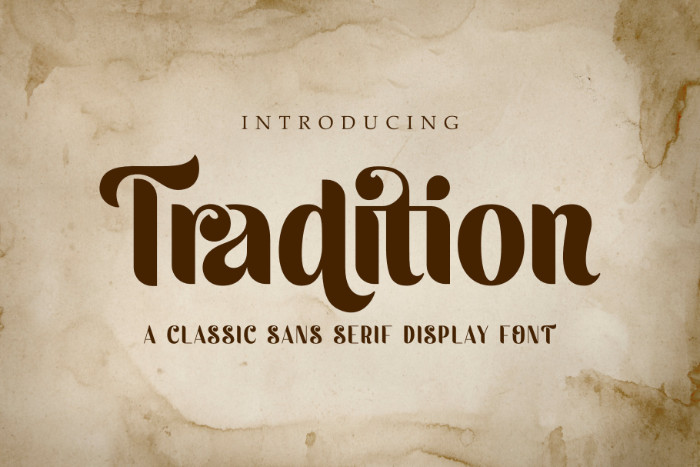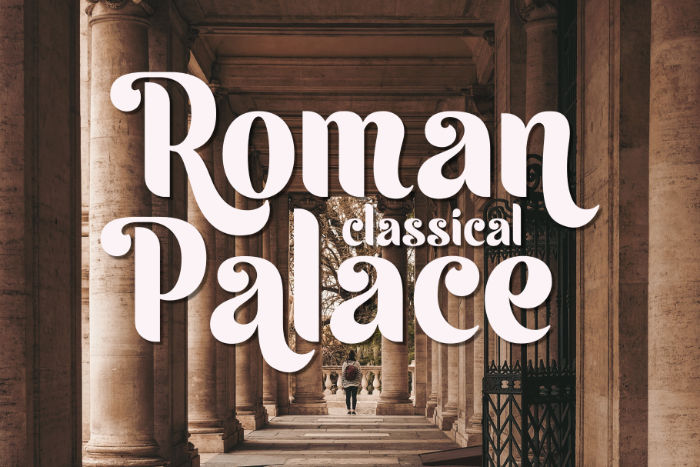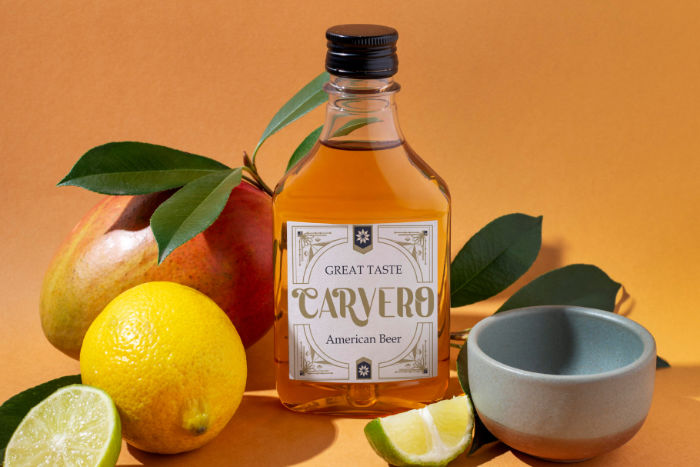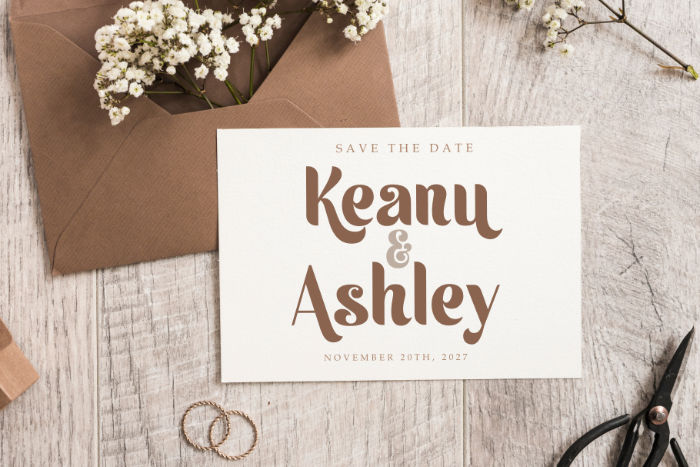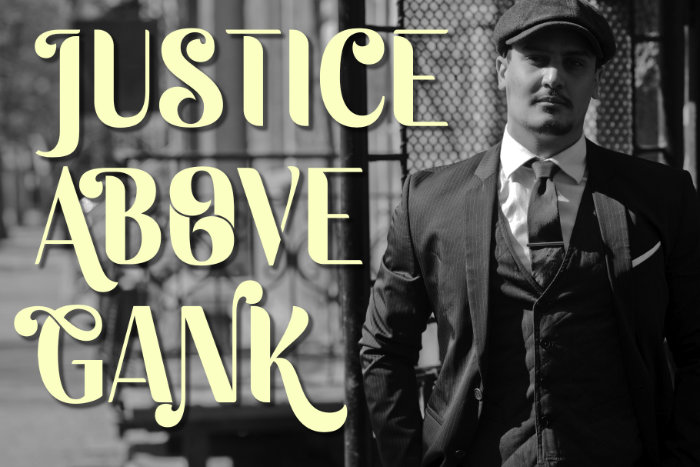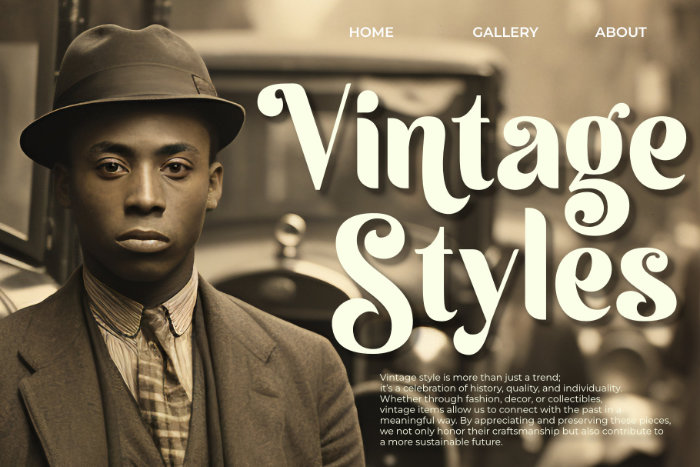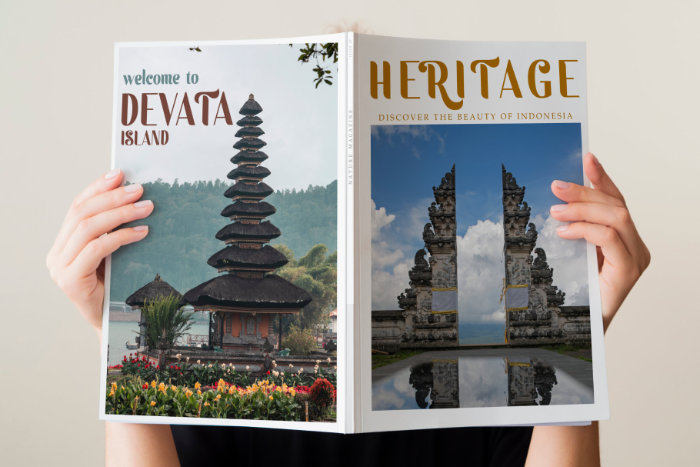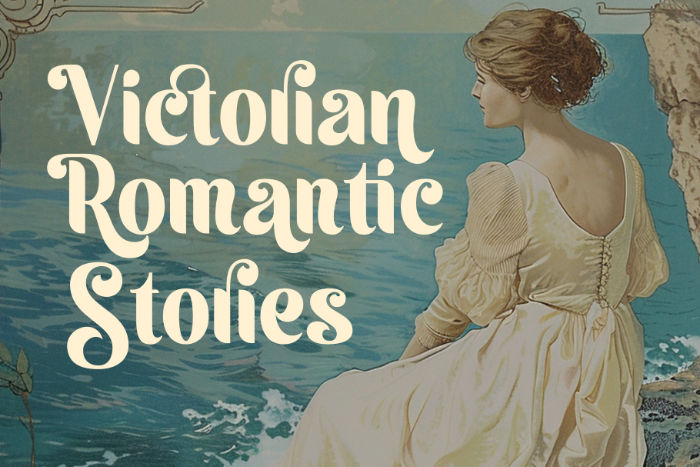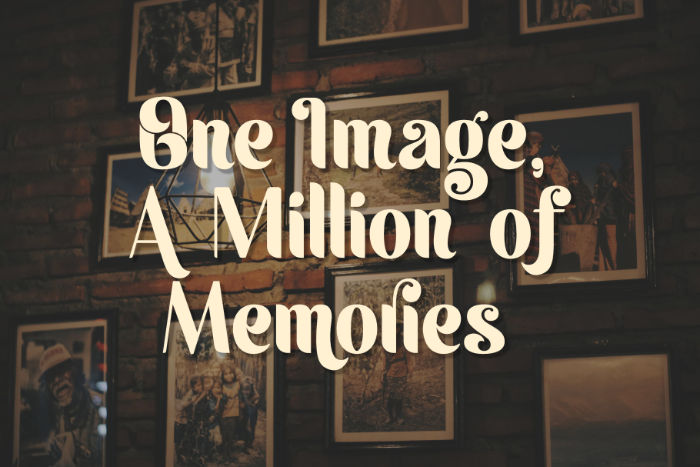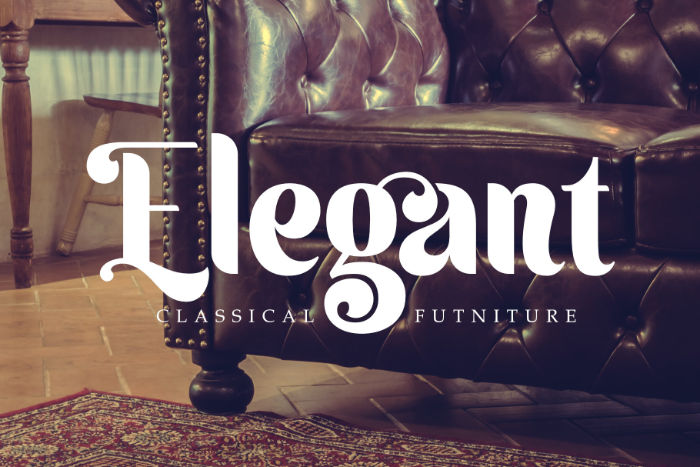
Tradition is a striking Bold Classic Sans Serif font designed to exude strength and sophistication in any creative project. With its clean, structured letterforms and timeless appeal, this font delivers a refined yet commanding presence. It is crafted with precision to balance modern minimalism with a traditional aesthetic, making it an excellent choice for projects requiring bold, confident typography.
This font offers a wide range of alternates and ligatures, providing designers with dynamic customization options to enhance visual impact. Whether used for branding, headlines, editorial layouts, or packaging, Tradition ensures clarity and authority with its strong, well-defined characters. Its seamless adaptability allows it to fit effortlessly into both digital and print designs, reinforcing a professional yet artistic touch.
Tradition’s versatility lies in its ability to remain elegant and approachable while maintaining a bold aesthetic. The expertly designed ligatures create smooth connections between characters, offering a fluid and polished look. Whether crafting stylish logos, engaging advertisements, or powerful messaging, this font elevates typography with its timeless yet contemporary feel.
For projects that demand a bold statement without sacrificing sophistication, Tradition is the perfect choice. It embodies a balance of strength and elegance, ensuring every design leaves a lasting impression.